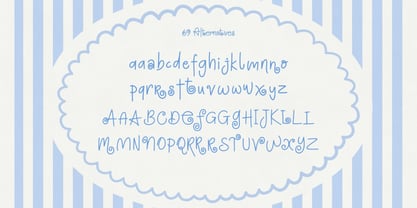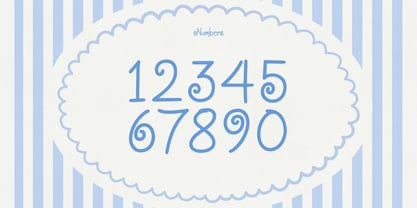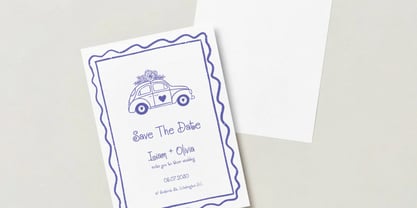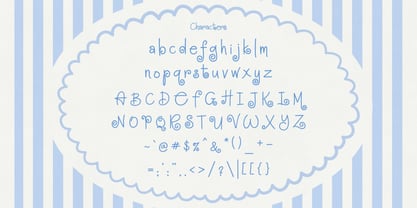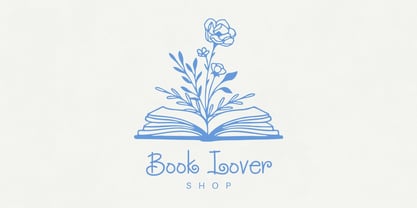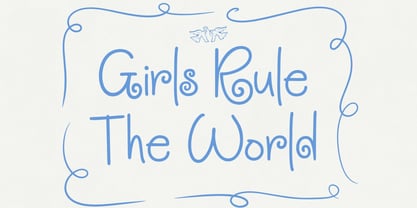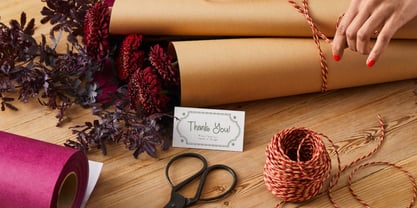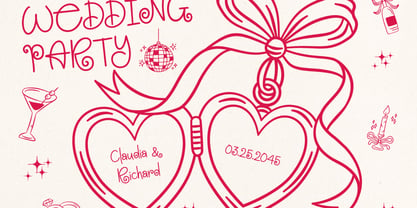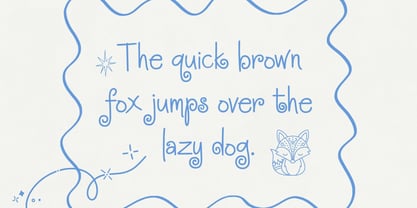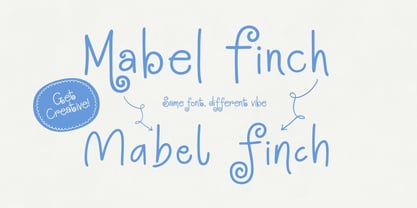
Mabel Finch
by Hipfonts
The Mabel Finch Font Family was designed by Igor Ovsyannykov and published by Hipfonts. Mabel Finch contains 1 styles. More about this family
Meet Mabel Finch, a delightfully playful hand-lettered font filled with soft curves, slender strokes, quirky letterforms, and charming curled details. Every character feels naturally drawn and full of personality, giving your words an authentic handmade quality that is sweet, memorable, and effortlessly distinctive.
Mabel Finch blends nostalgic character with modern versatility. Its whimsical shapes feel perfectly at home in vintage-inspired designs, while its clean, delicate construction makes it equally beautiful for contemporary boutiques, creative businesses, artisan products, and personalized stationery. The playful curls add just the right amount of charm without overpowering your message, helping logos, headlines, and packaging feel warm and instantly recognizable.
Use Mabel Finch to create enchanting boutique logos, product packaging, candle labels, bakery branding, wedding invitations, greeting cards, thank-you notes, children’s designs, social media graphics, stickers, merchandise, and handcrafted product tags. Whether you are developing an entire brand identity or adding a special handwritten touch to one meaningful project, Mabel Finch transforms ordinary words into something personal, joyful, and wonderfully unique.
Designers: Igor Ovsyannykov
Foundry: Hipfonts